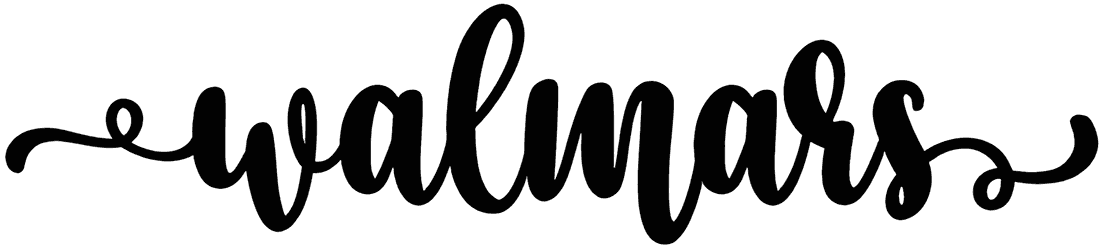
Camila Font
If you are passionate about having a lovely calligraphy font that comes with a cursive style and crooked characters, then Camila really deserves to be on your radar and seriously considered as a reliable source of inspiration for designing high-end visual work like magazines, stickers, social media posts, book covers, or flyers.